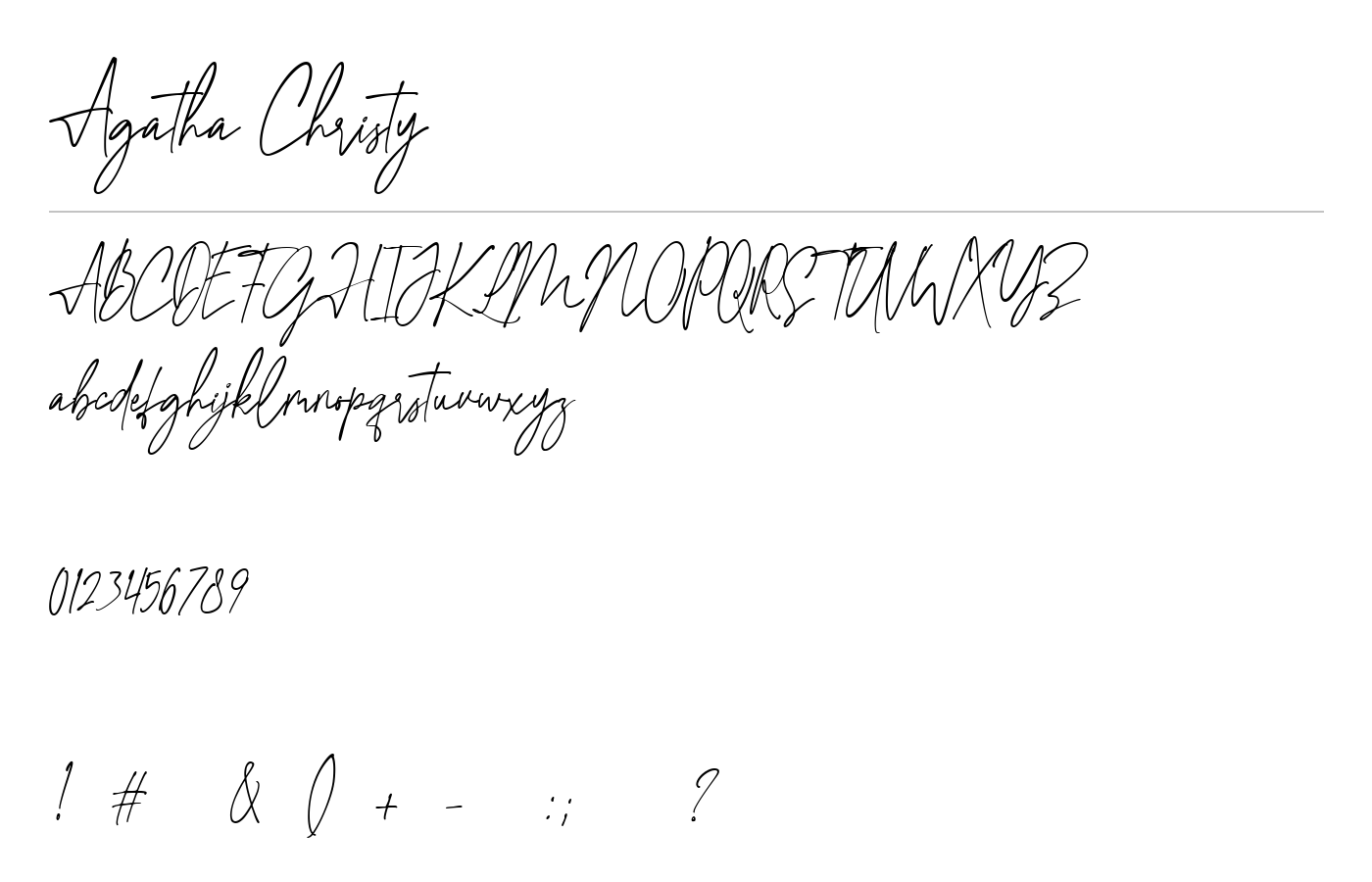
Agatha Christy is a delicate, handwritten script font characterized by its tall, slender letterforms and flowing, elegant strokes that capture a personal, artistic touch. Ideal for creative projects, invitations, and branding that seek a sophisticated yet approachable style, this font conveys grace and individuality with its airy spacing and fluid, natural lines. Its refined appearance makes it perfect for adding a charming, handwritten feel to designs while maintaining readability and style.
Agatha Christy Font
About Agatha Christy Font
| Font family | Agatha Christy Font |